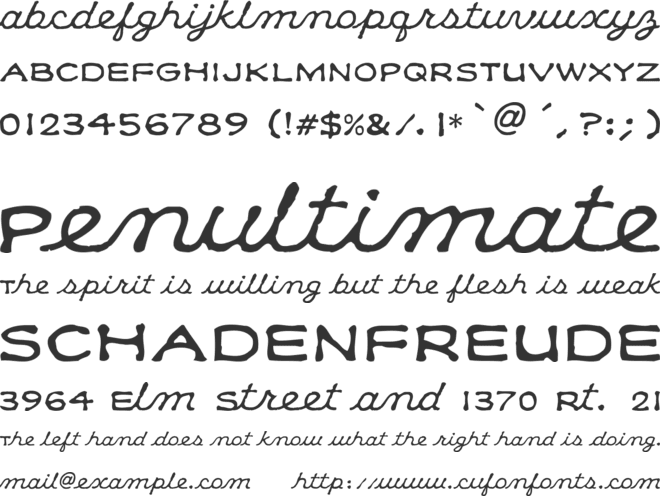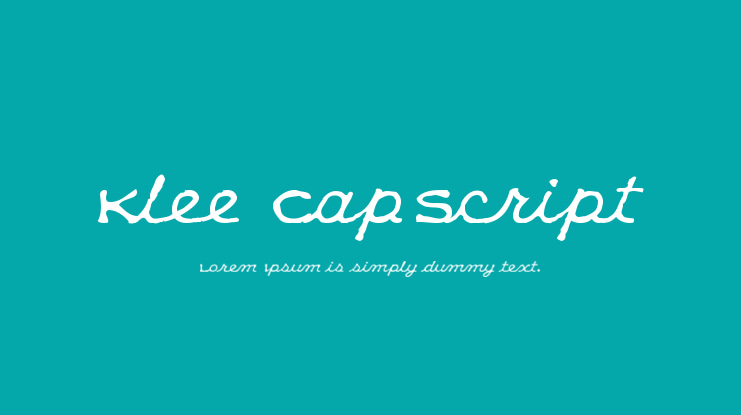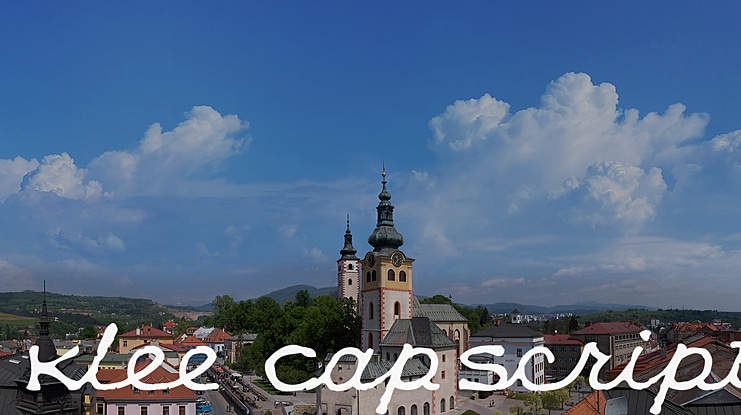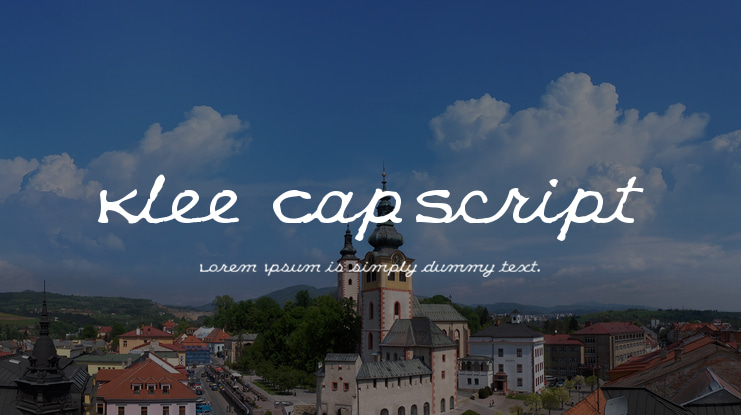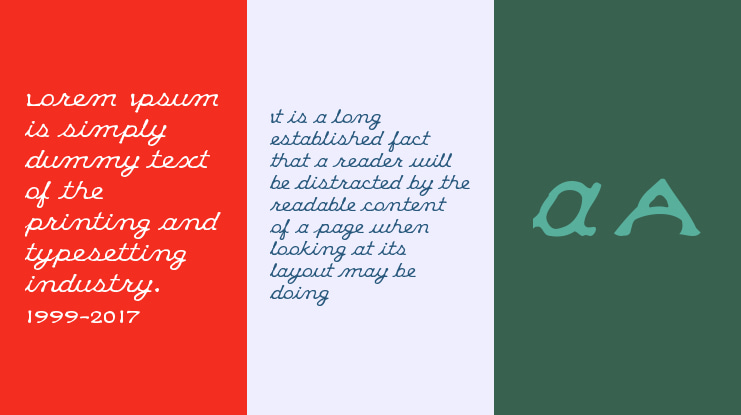
Klee CapScript Font Family
Based on hand-drawn lettering in a mail art invitation by Emma Klee.
The upper case is based on Emma’s capitals and the lower case is freely adapted from her script. The font is designed to be used with words either in capitals or script, just like in the original invitation.